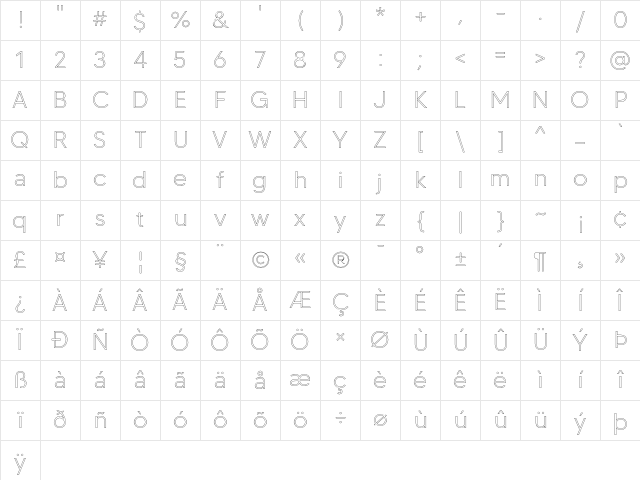
Complete MADE TOMMY Outline Light glyph index. Displaying only characters natively supported by MADE TOMMY Outline Light font.
MADE TOMMY Outline is built around its visual character rather than neutral utility - its distinctive forms are designed to make an impression at display sizes. Its slender proportions lend an understated elegance to any composition.
Font Pairing: Pair with a clean neutral sans-serif for body copy to let MADE TOMMY Outline's character lead without overwhelming the composition.
Pro Tip: Use MADE TOMMY Outline exclusively at display sizes - it was designed to be seen, not read at length. Let a neutral companion handle body copy.